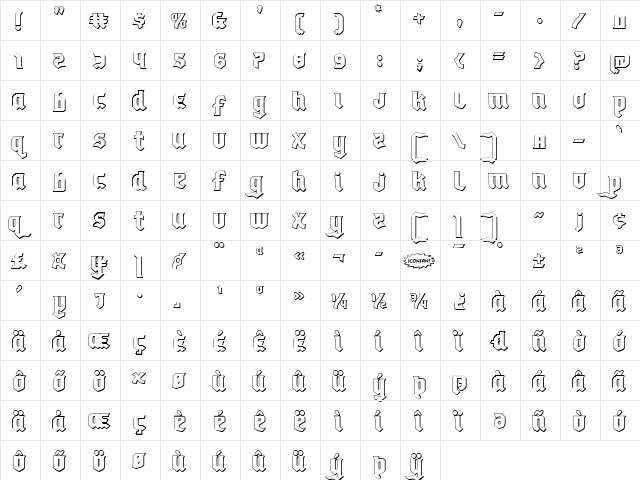
Empire Crown 3D Regular
Design Context for Empire Crown 3D Typeface
Empire Crown 3D is a composed and adaptable typeface that performs quietly and consistently across a wide range of design contexts.